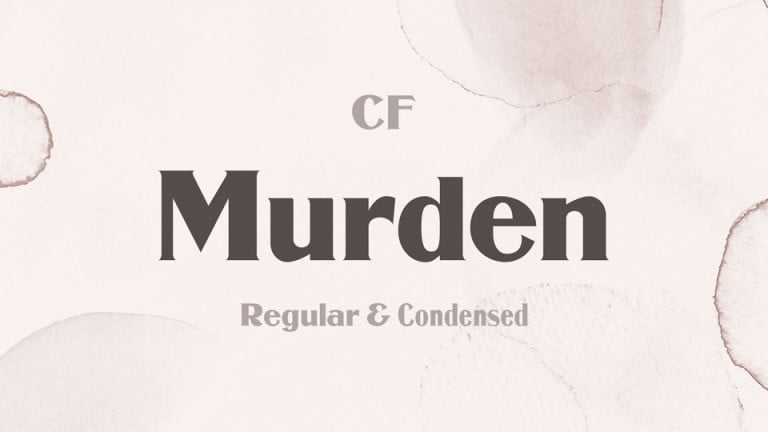
Murden Serif Font
Murden Font is a wedge serif typeface that is sure to stand out! A little bit retro and a bit modern, Murden. is great for logos, editorial or web design. The unique sharp serifs mixed with thin strokes give off a bold mid century architectural vibe.
Perfect for gorgeous logos & titles, The Murden will pair beautifully with many fonts and work well with whatever project you’re working on. This font is free for PERSONAL AND COMMERCIAL USE.